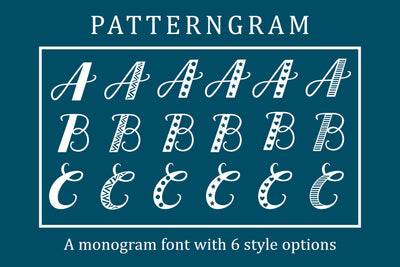
Patterngram- A monogram font with 6 style options
Patterngram is a monogram font made up of 26 letters. (no numbers, punctuation, etc). Each letter is available in 6 different styles - 1 solid and 5 patterns. There are 2 styles associated with the uppercase and lowercase letters, and the other 4 styles are available as lowercase alternates.
The patterned options are recommended for monograms and larger text projects as the detail may be too small on smaller projects. Also great for birthday banners!!!